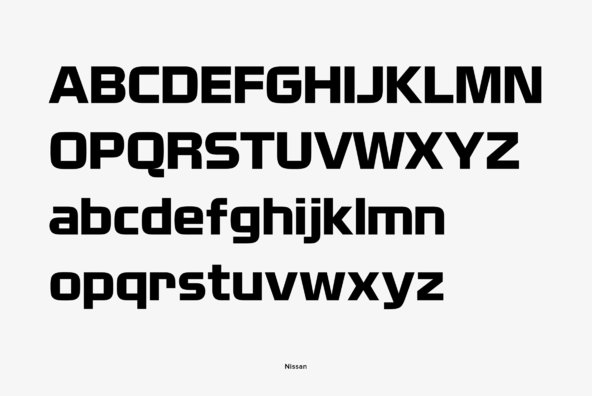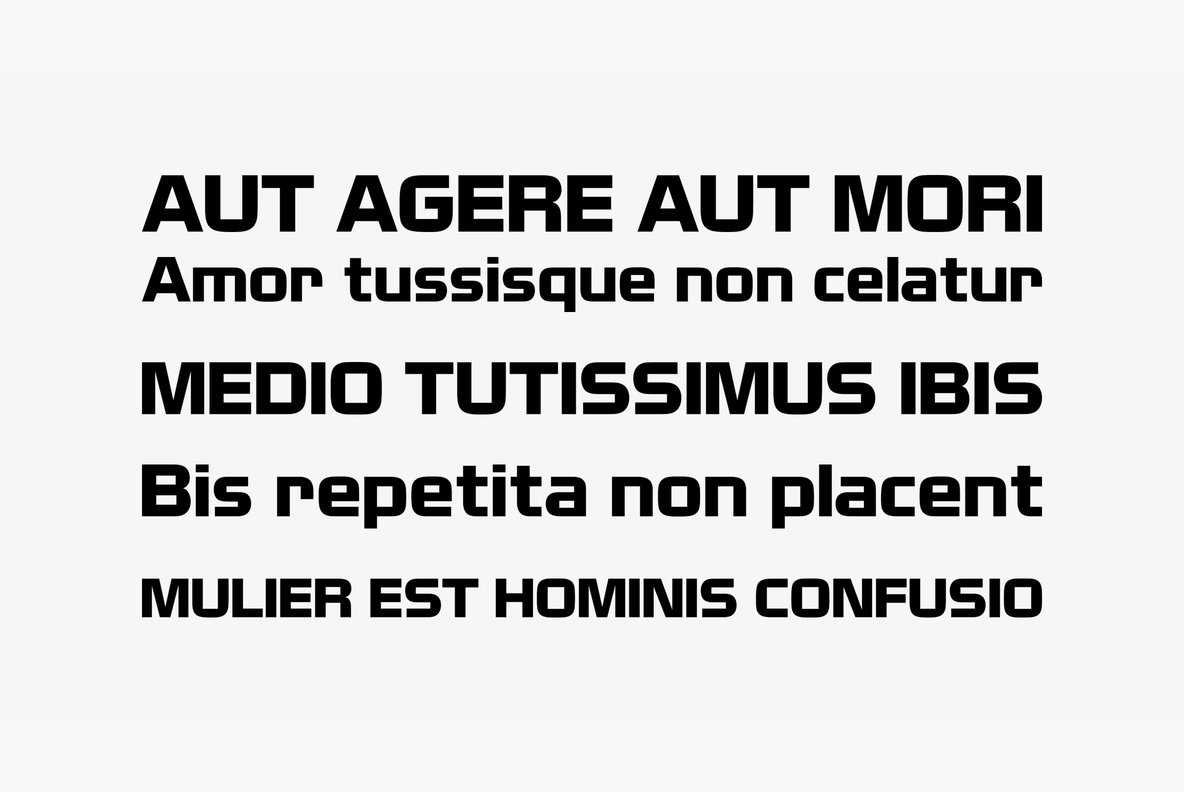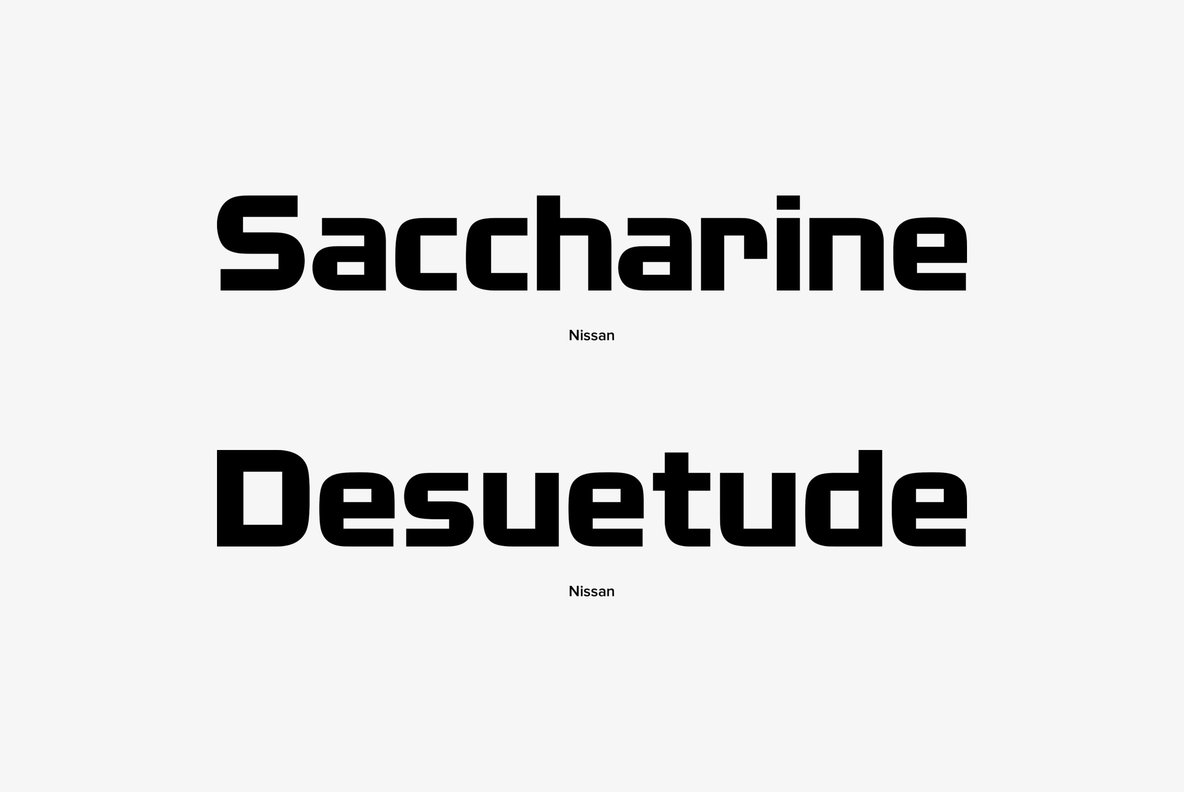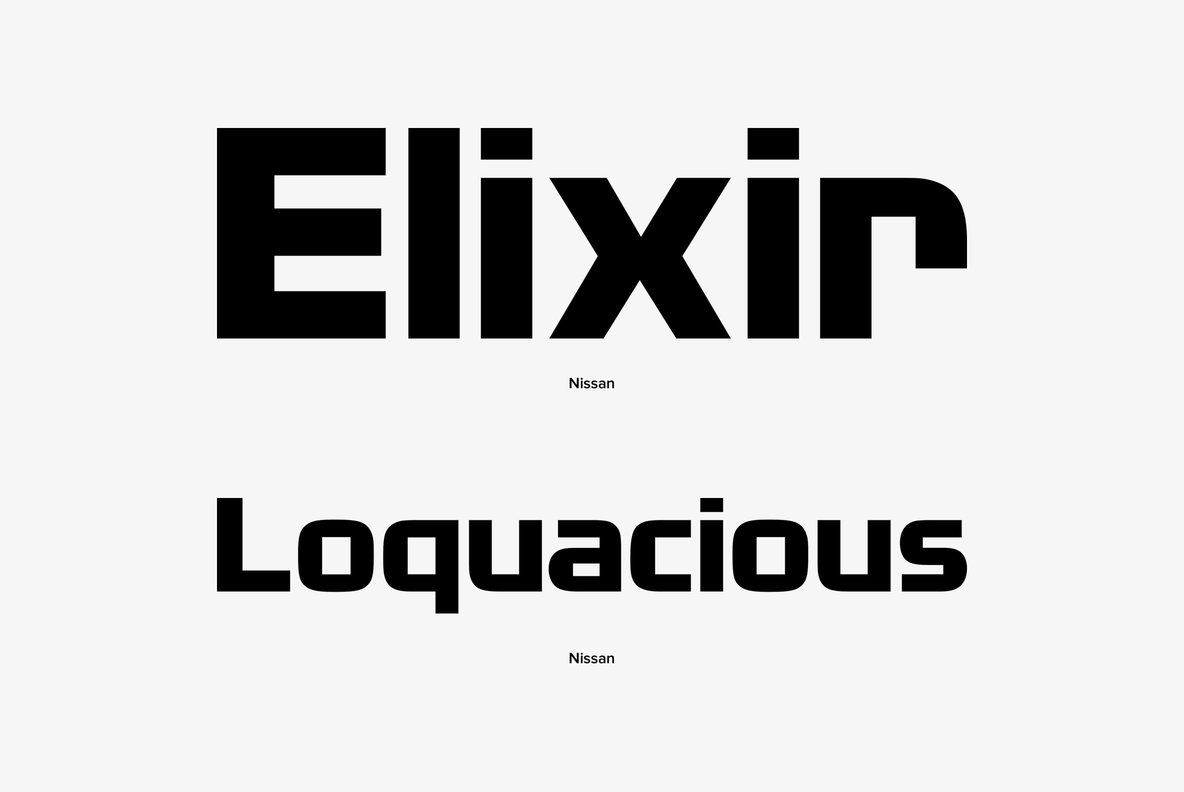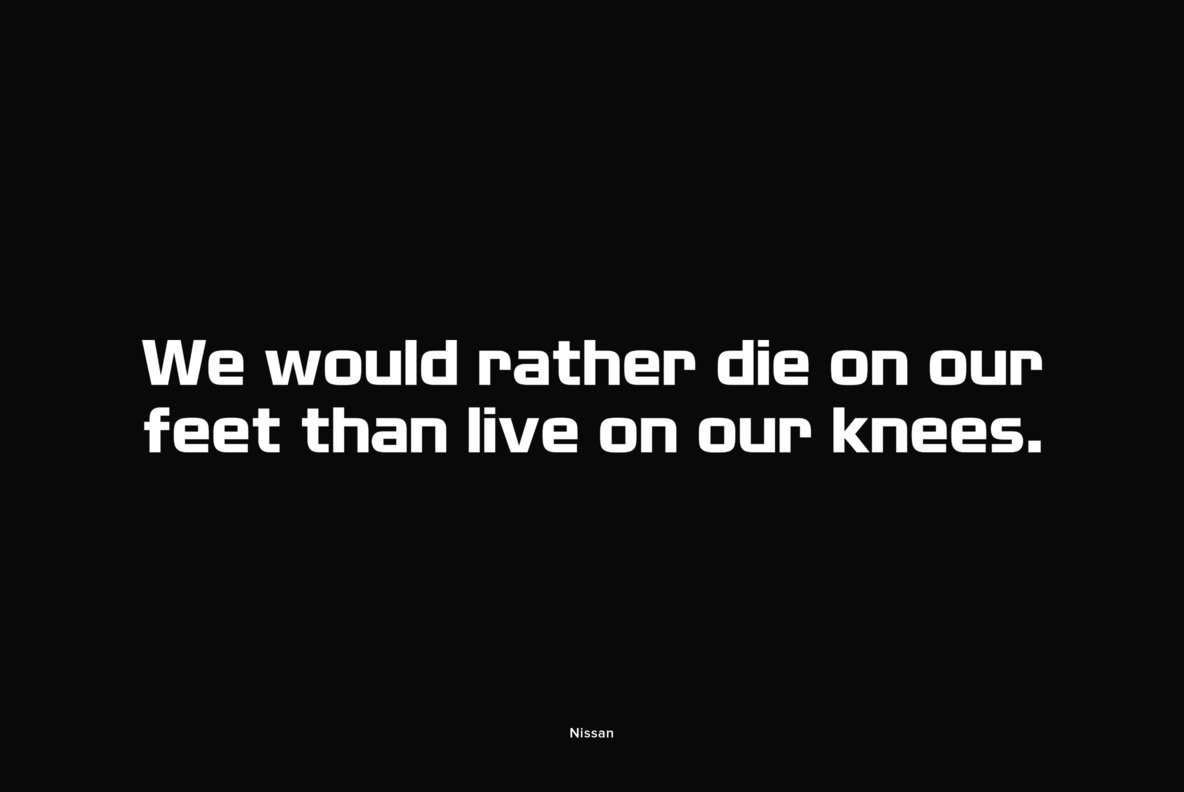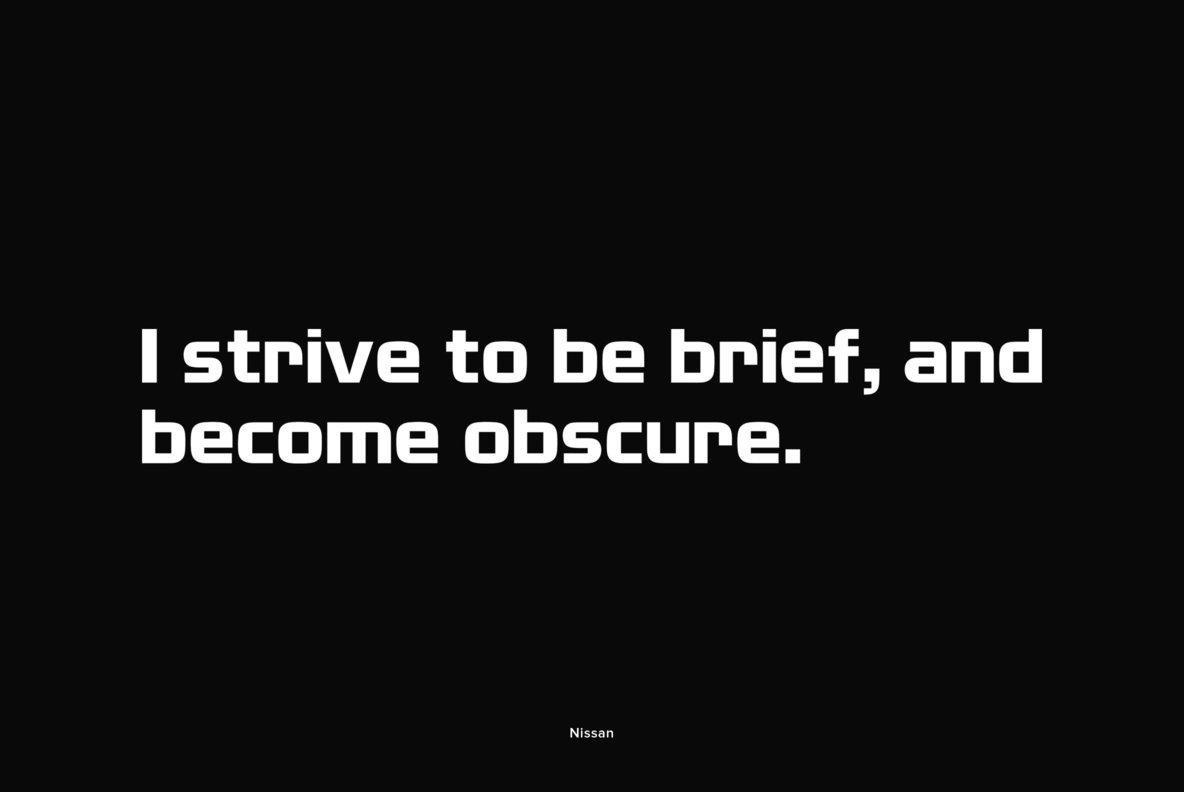
Nissan is a technical and custom font design for the Japanese automaker Nissan. Works great in technical and masculine type settings with a retro flare to it.